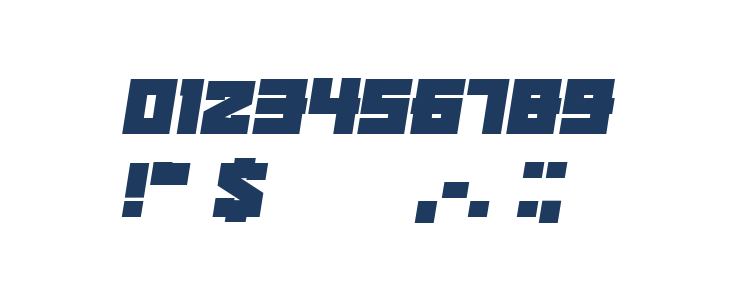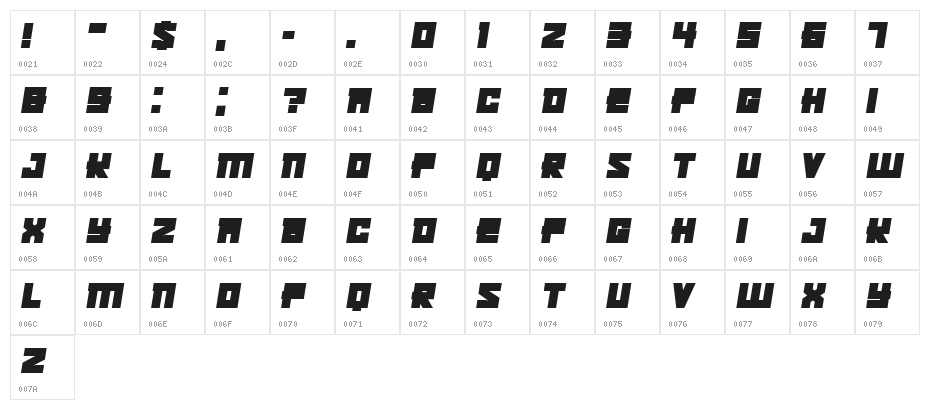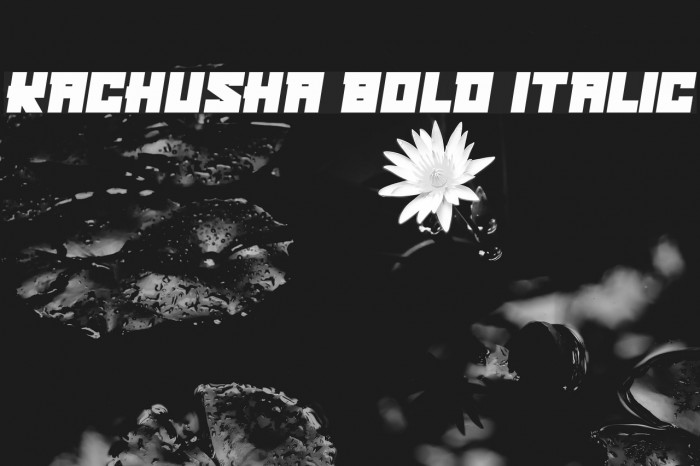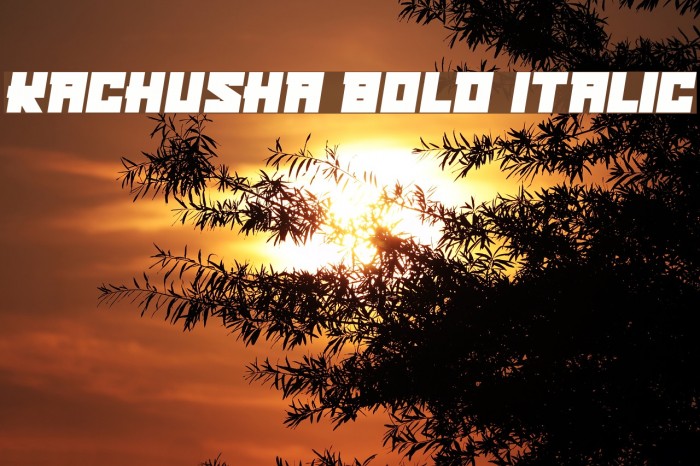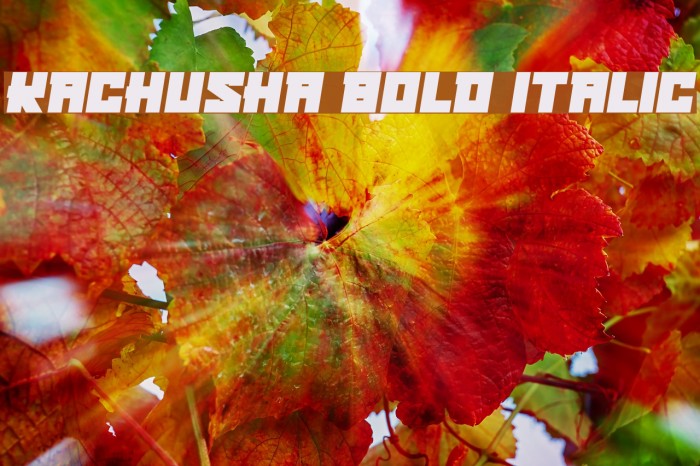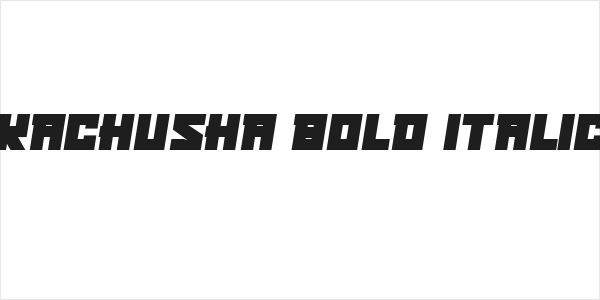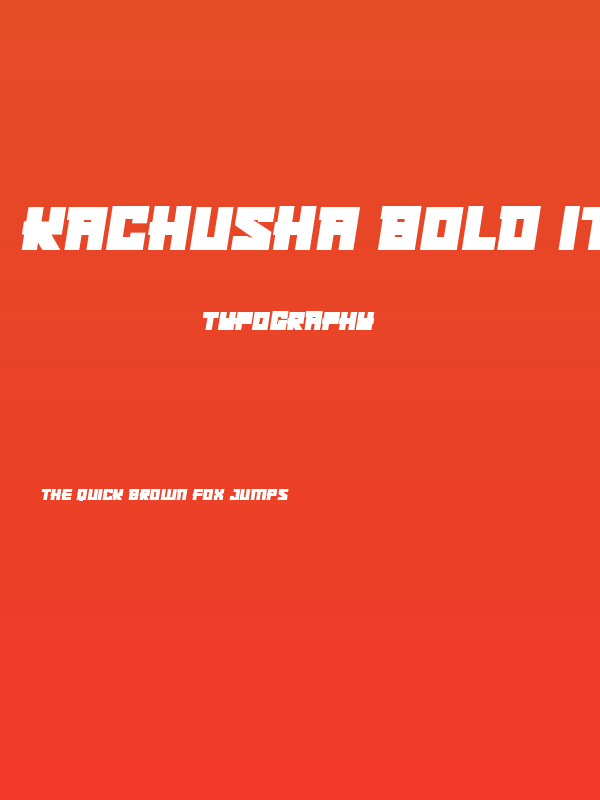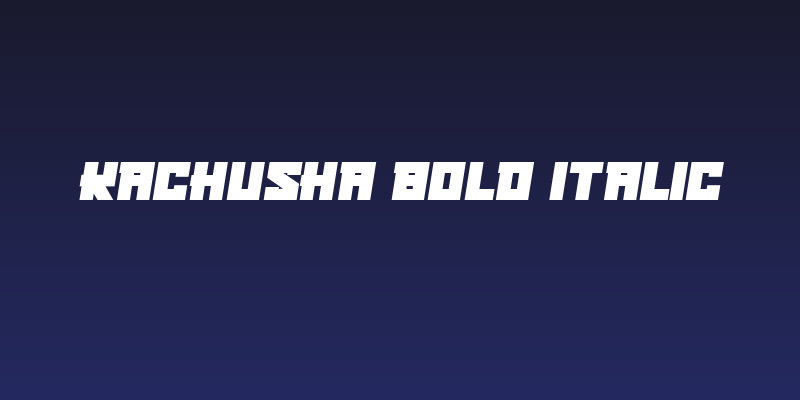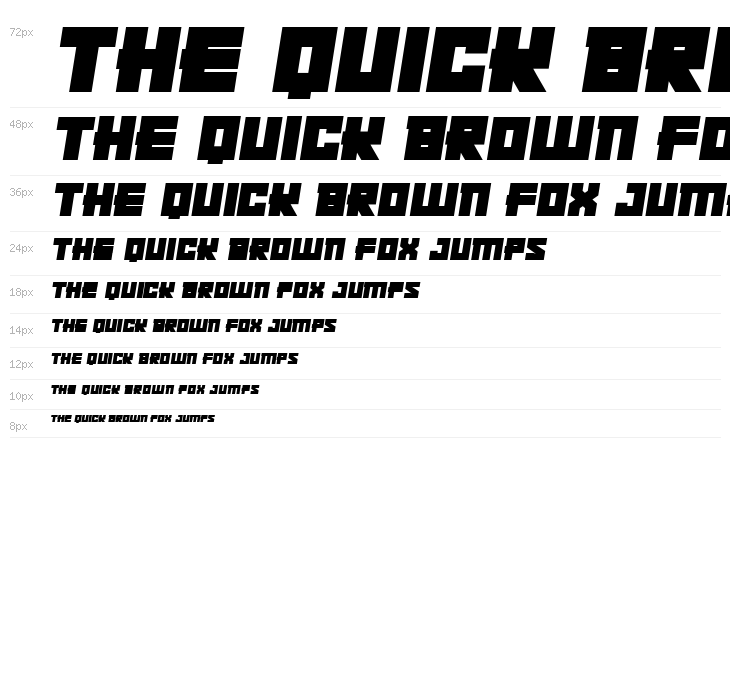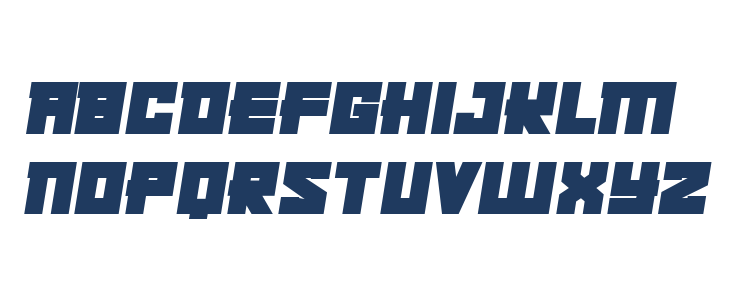
Kachusha Bold Italic Font
Kachusha Bold Italic Description
This font features a bold and italicized style with a strong geometric structure. The characters are blocky and angular, giving it a futuristic and dynamic appearance. The uppercase and lowercase letters maintain a consistent width, contributing to a uniform look. The numbers and special characters follow the same design principles, ensuring cohesion across all glyphs. The font's boldness is emphasized by its thick strokes and sharp edges, making it stand out in any design. Its italic slant adds a sense of motion and energy, suitable for projects that require a modern and impactful aesthetic.
| Use Case | Logos, Headlines |
| Proposed Projects | Ideal for video game titles, tech branding, posters, and sports team logos. |